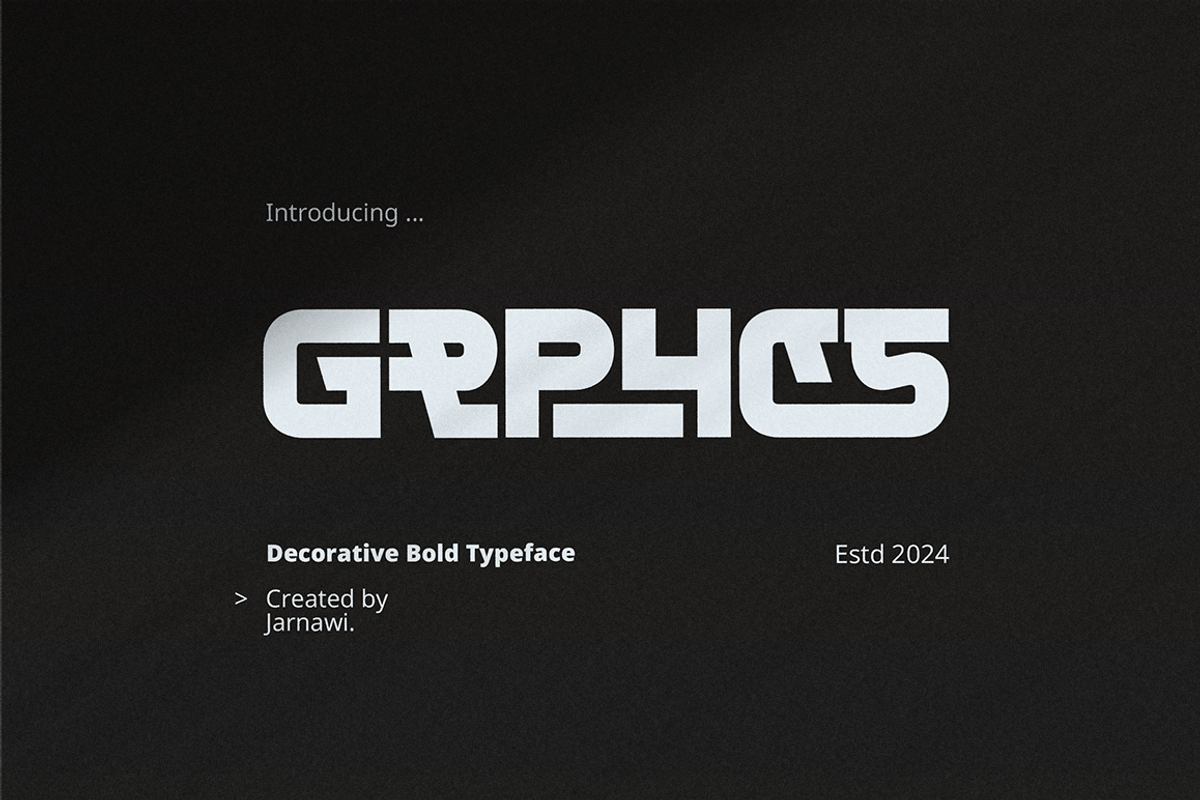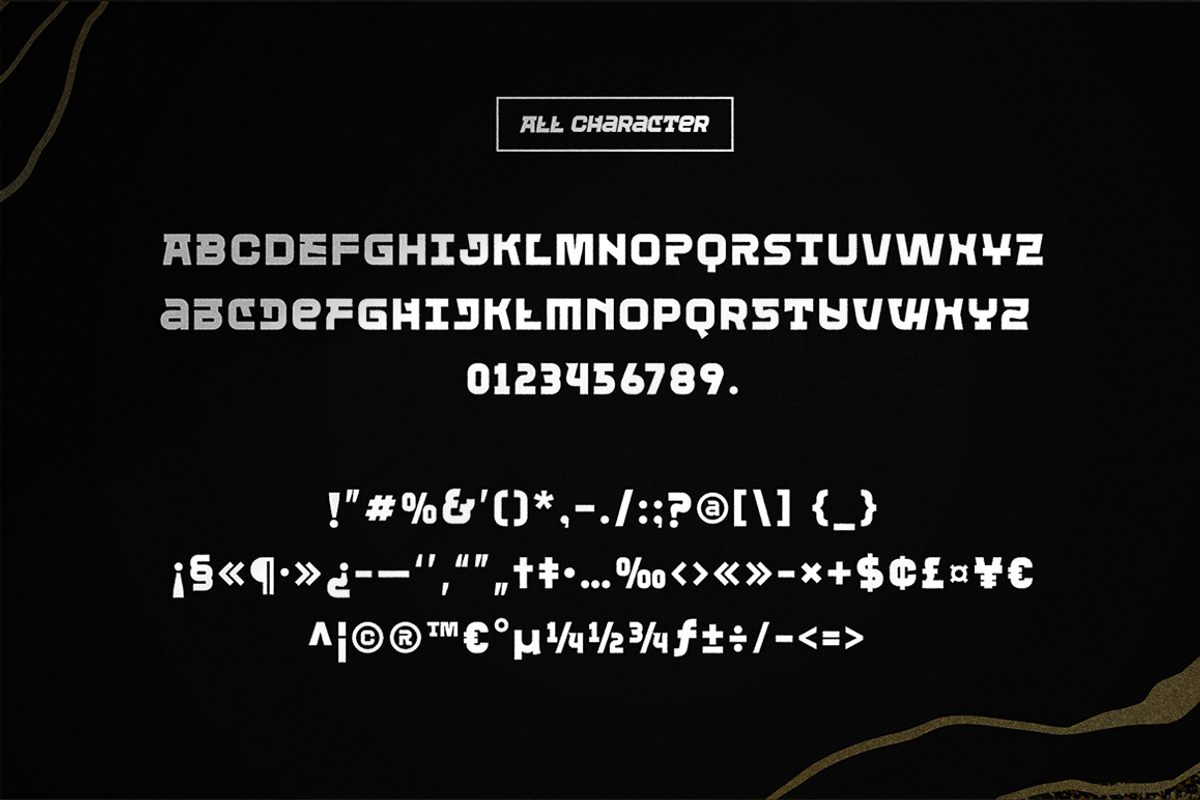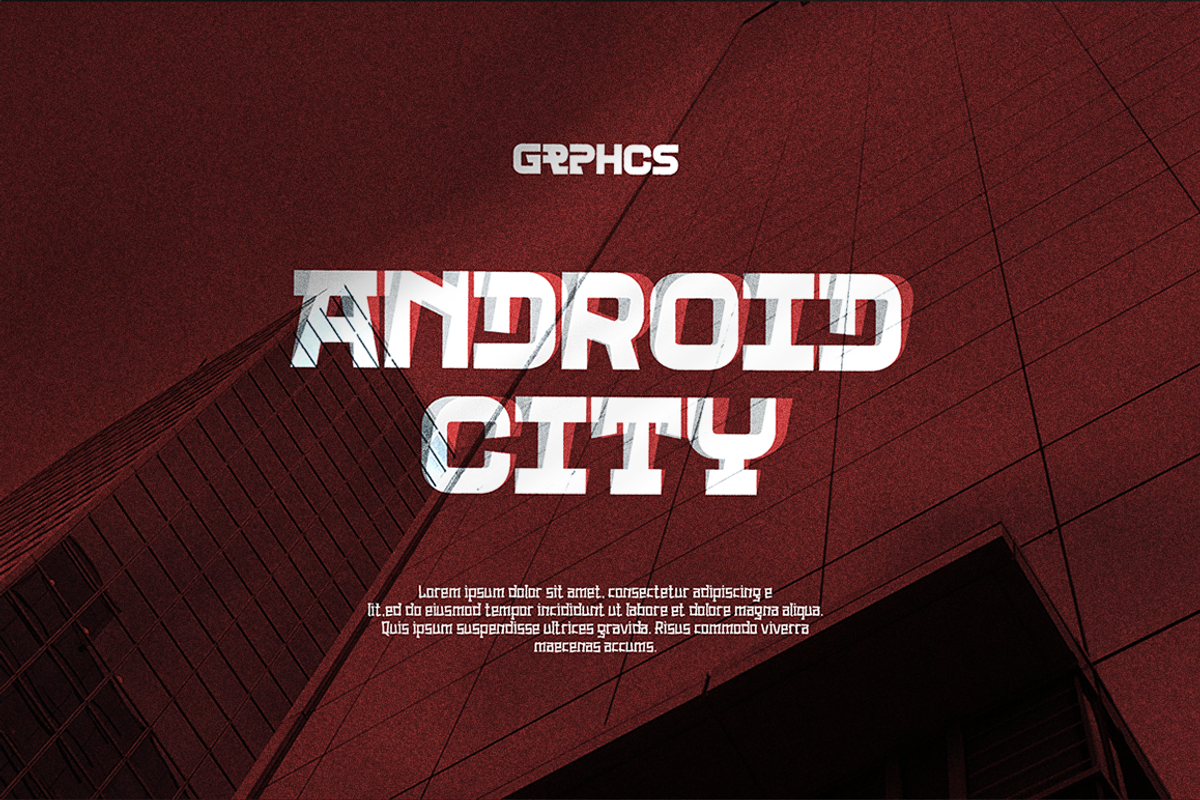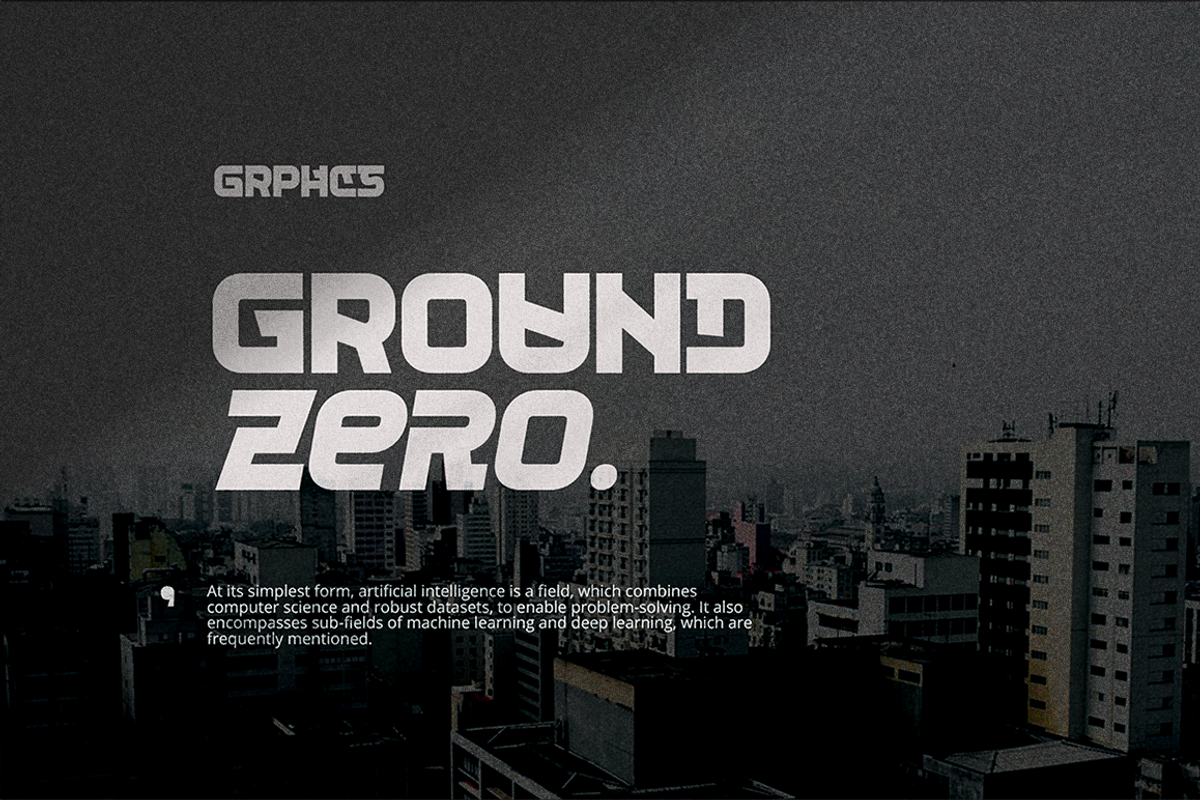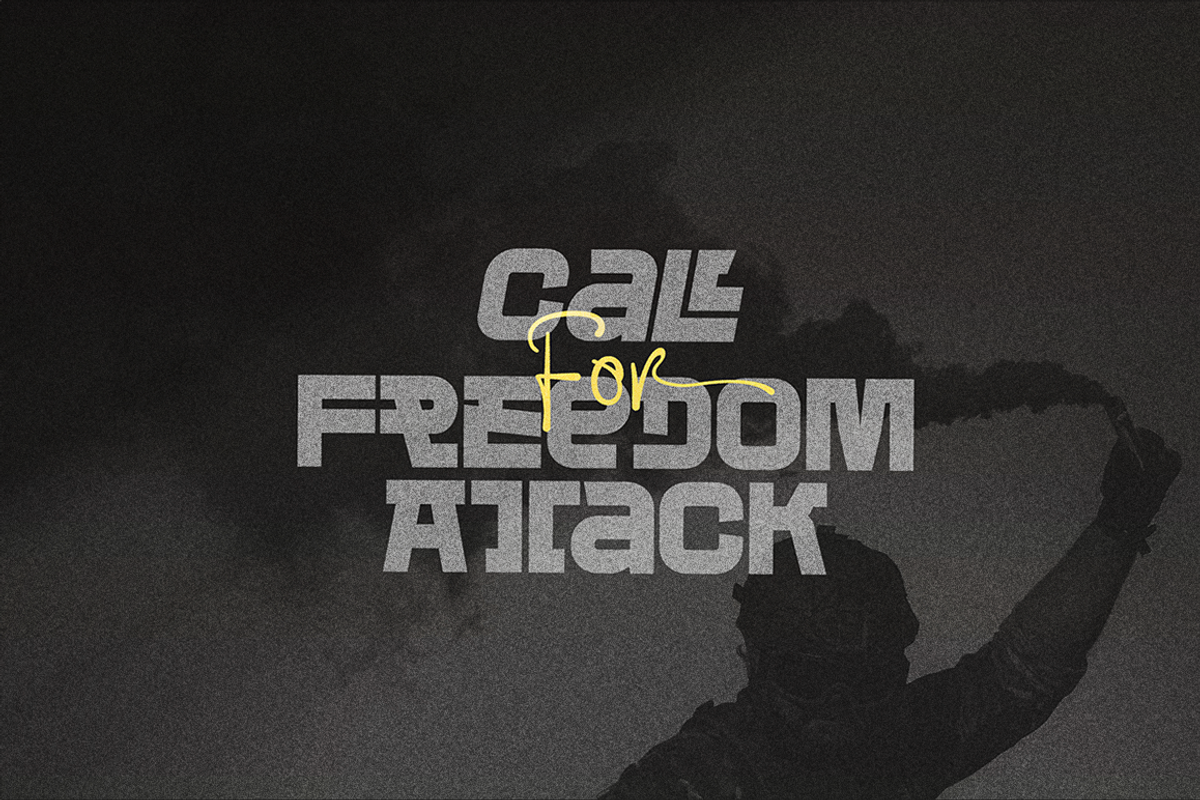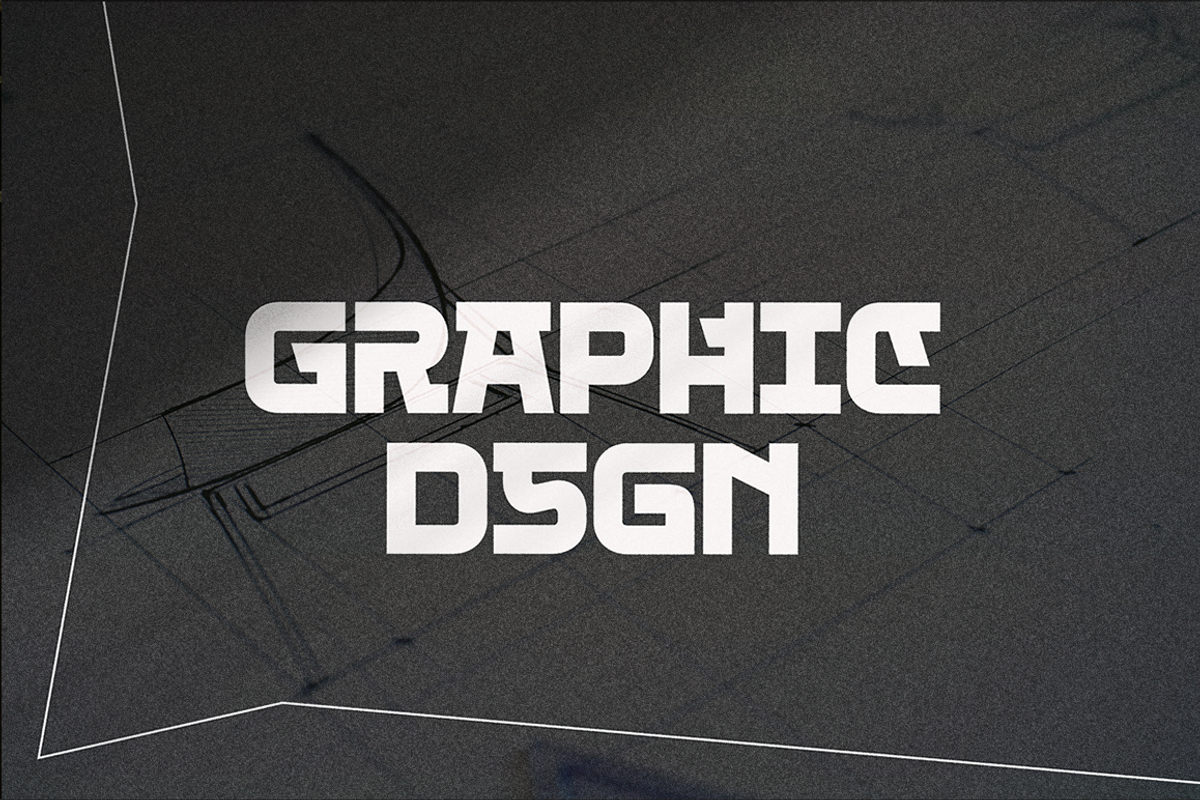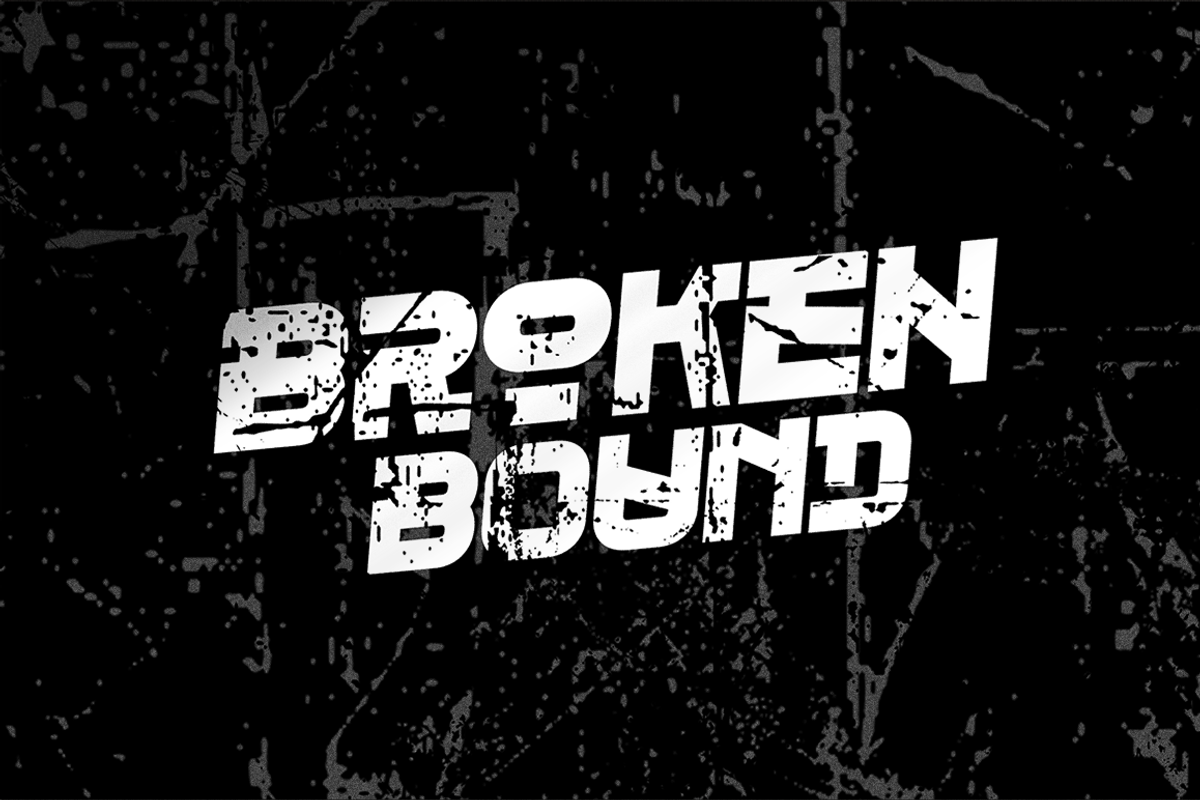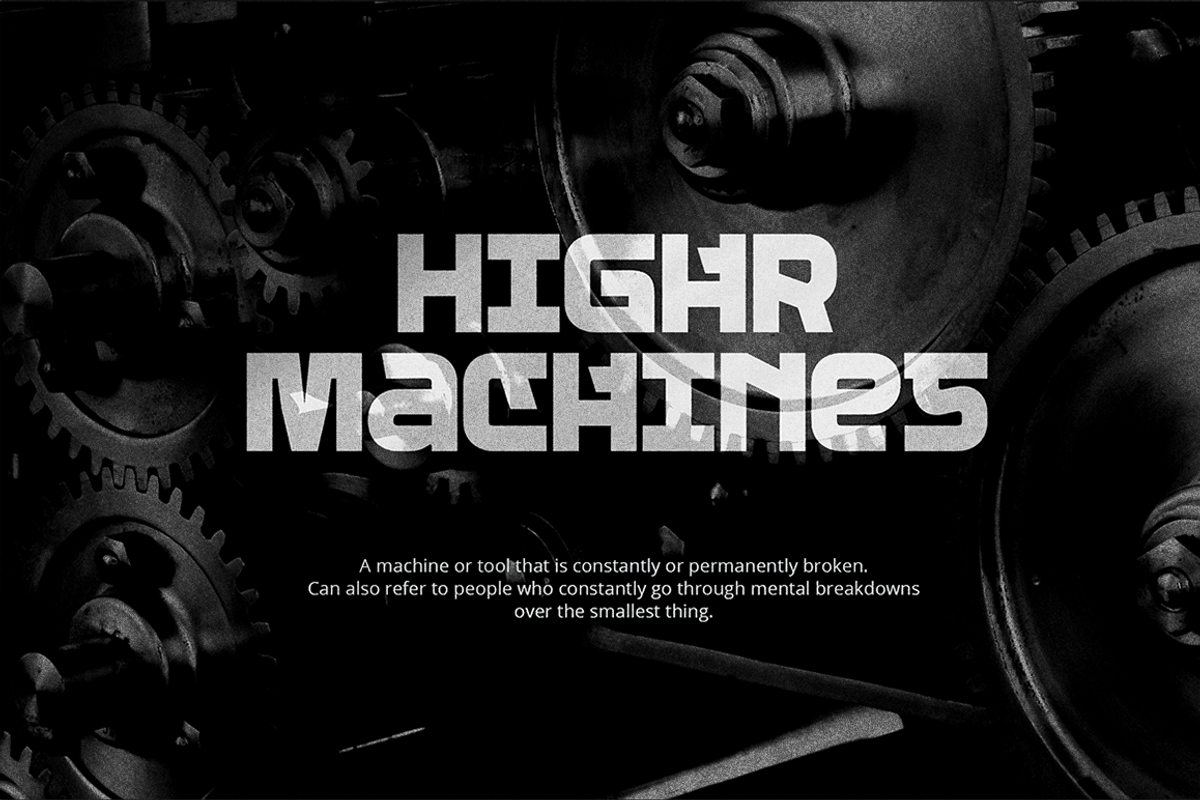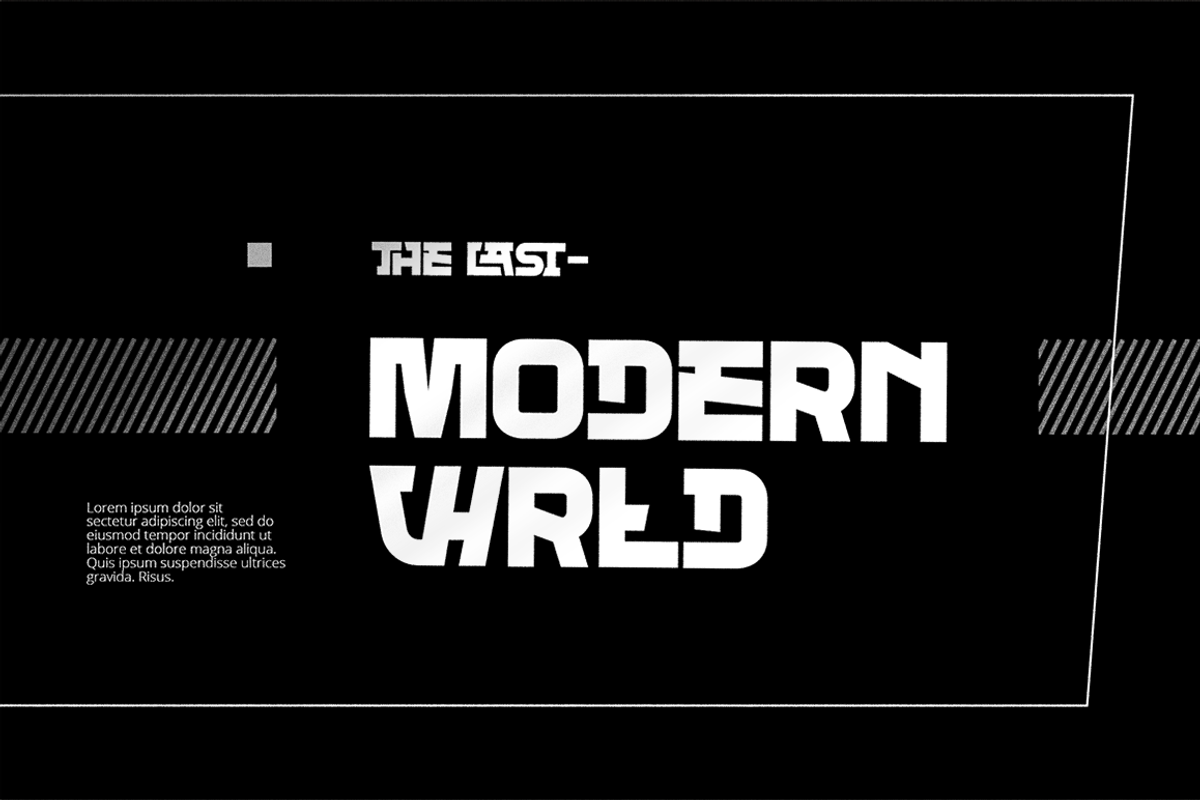
Grphcs - Logo Font
Introducing grphcs – a distinctive urban bold typeface designed to make a statement. This unique font combines modern flair with an edgy aesthetic, making it the perfect choice for impactful logo designs. With its strong lines and confident presence, grphcs commands attention and exudes a contemporary vibe. Ideal for brands looking to convey a sense of boldness and creativity, this typeface transforms ordinary text into striking visual elements. Embrace the urban energy and make your logos stand out with the unparalleled style of grphcs.
- Regular Bold Font
- Unique All Caps Font
- ligatures & Alternates